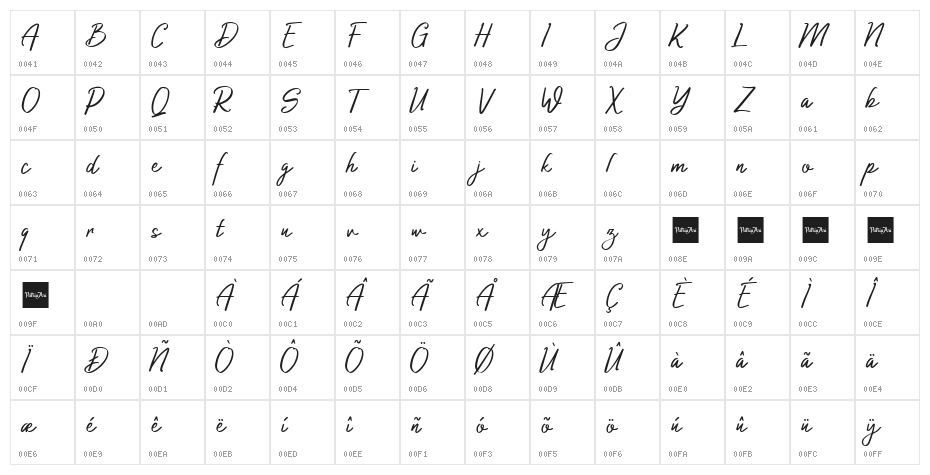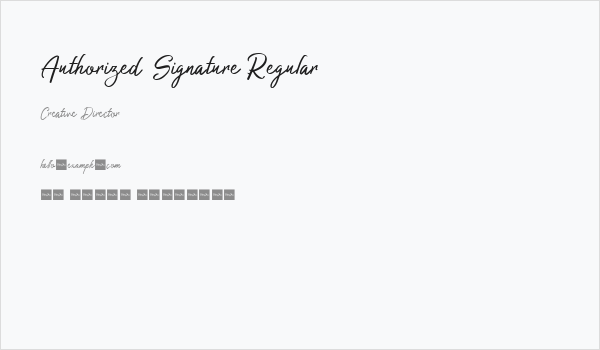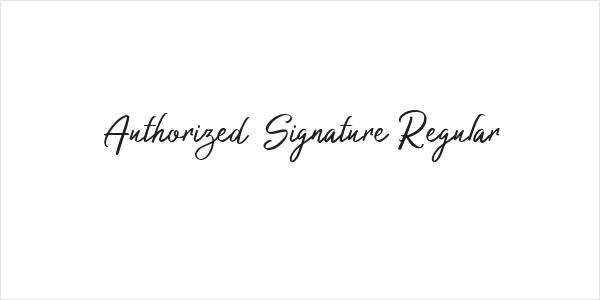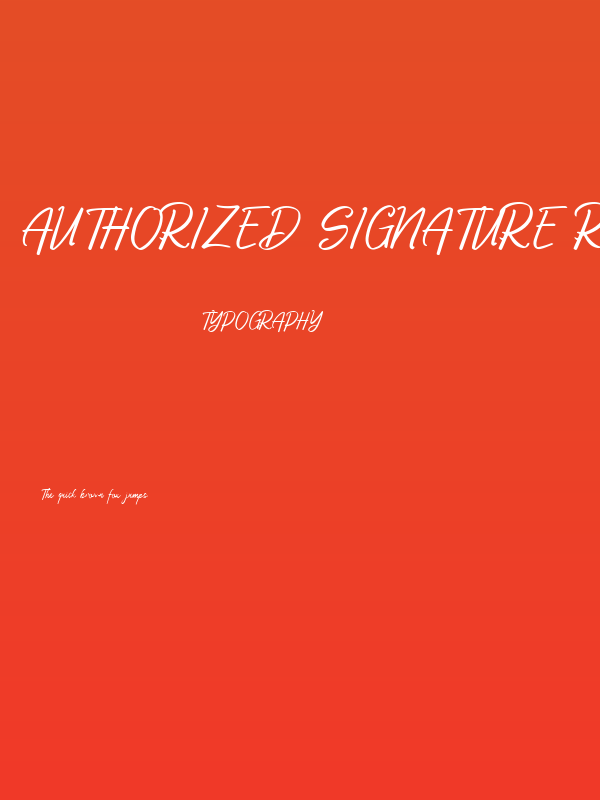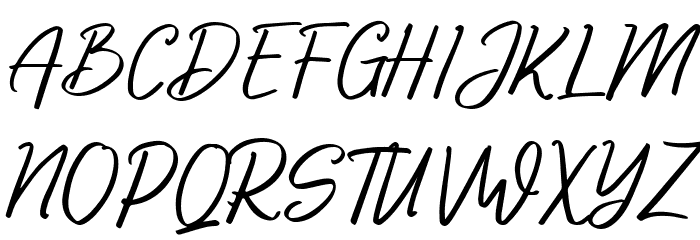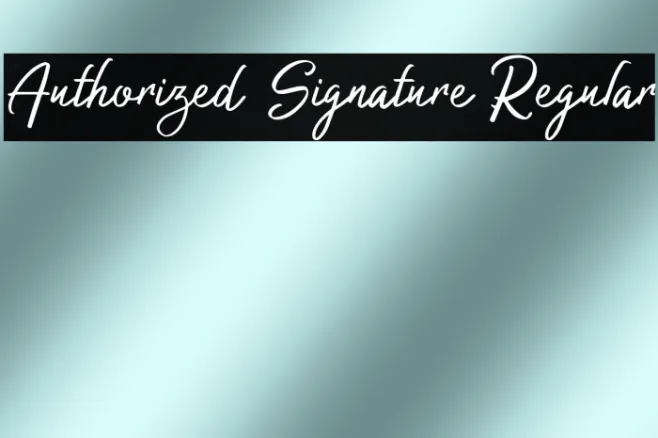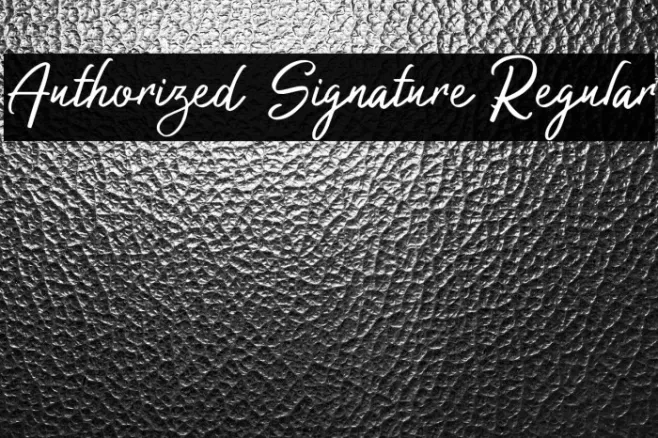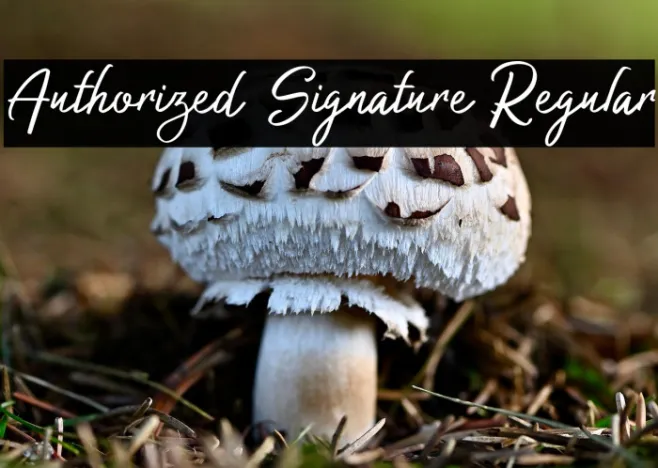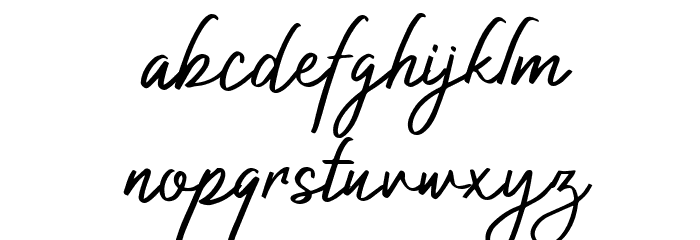
Authorized Signature Regular Font
Authorized Signature Regular Description
This font exudes a sophisticated and elegant script style, reminiscent of a handwritten signature. The characters are fluid and connected, with a graceful flow that mimics natural handwriting. Each letter is crafted with smooth curves and subtle flourishes, giving it a personal and authentic feel. The uppercase letters are bold and prominent, while the lowercase letters maintain a consistent and harmonious appearance. This font is ideal for adding a touch of class and personalization to any project, making it perfect for invitations, branding, and any design that requires a signature-like quality.
| Proposed Projects | Ideal for wedding invitations, branding, personal stationery, and elegant logo designs. |